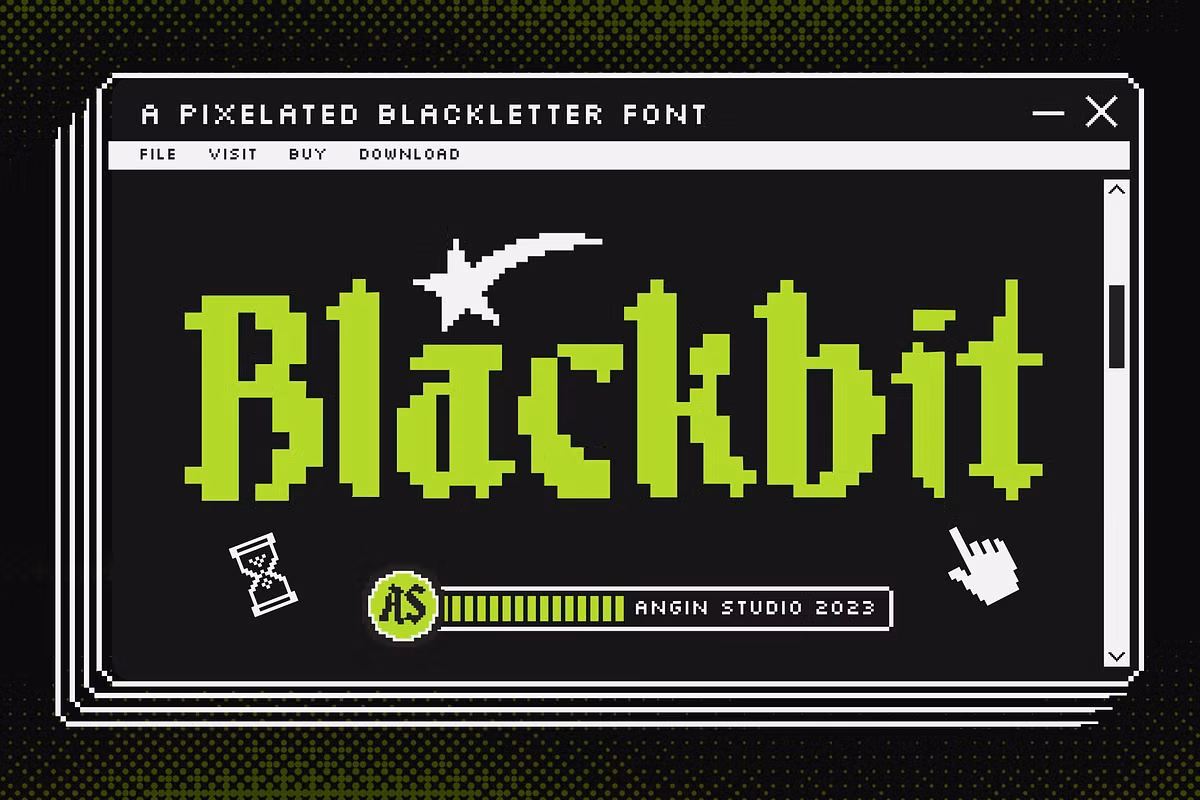
Blackbit Pixelated Blackletter Font Free Download
Blackbit Pixelated Blackletter Font Free Download is a unique, modern typeface that merges the intricate, traditional charm of blackletter with a pixelated, digital aesthetic. Its bold, structured letterforms and edgy style make it ideal for gaming graphics, retro-inspired designs, posters, branding, and any project that needs a fresh, unconventional look.
Whether you’re crafting a game logo, creating striking event posters, or adding a digital twist to classic lettering, Blackbit combines vintage elegance with a cutting-edge, pixelated flair. It’s the perfect font for designers who love bold, experimental typography.